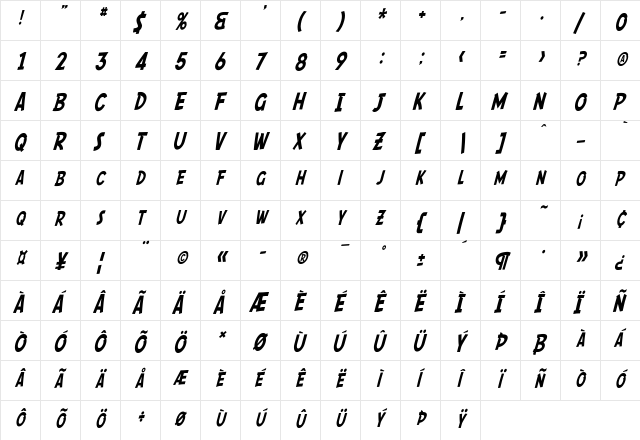
SF Comic Script Condensed Regular
| Designer | ShyFonts Type Foundry |
Design Context for SF Comic Script Condensed Typeface
SF Comic Script Condensed trades formality for fun, with bouncy, characterful letterforms that bring warmth and energy to any project.
Great for children's books, toy packaging, family event branding, and casual consumer-facing design.
Font Pairing: Pairs well with a rounded or humanist sans for body copy, maintaining the friendly tone without relying on SF Comic Script Condensed to carry extended reading.
Pro Tip: Avoid using SF Comic Script Condensed for long passages of text — it works best for headlines, labels, and short calls to action.